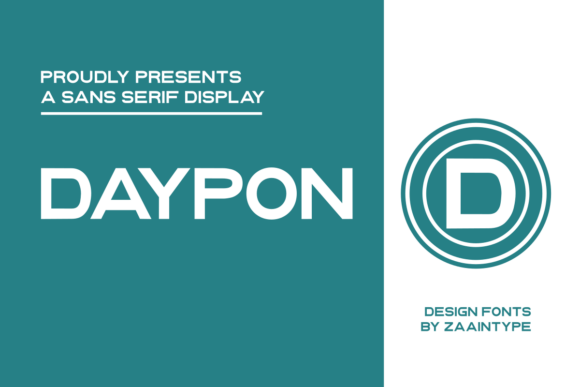
Introducing Daypon: The Ultimate Contemporary Sans Serif Font for Modern Designs
In the world of typography, fonts play a crucial role in conveying messages, expressing emotions, and creating a lasting impression. With the ever-evolving landscape of digital and print media, the demand for modern, legible, and versatile fonts has increased significantly. This is where Daypon, a contemporary sans serif font, comes into play. Designed with simplicity and legibility in mind, Daypon is the perfect solution for designers, marketers, and businesses looking to elevate their brand’s visual identity.
Design Philosophy: Simplicity and Legibility
Daypon’s design philosophy revolves around the principles of simplicity, legibility, and versatility. Its neat, linear aesthetics and symmetrical proportions make it an ideal choice for a wide range of applications, from digital branding and web design to printed media. The font’s understated design ensures that it doesn’t overpower the content, allowing the message to take center stage.
Daypon’s simplicity is not just about minimalism; it’s also about creating a sense of balance and harmony. The font’s carefully crafted letterforms, with their subtle curves and precise lines, work in tandem to create a visually appealing and easy-to-read experience. Whether you’re designing a website, brochure, or social media post, Daypon’s legibility ensures that your message is conveyed clearly and effectively.
Key Features of Daypon Font
- Contemporary sans serif design: Daypon’s modern sans serif design makes it perfect for contemporary brands and designs.
- Neat and linear aesthetics: The font’s clean lines and minimalist approach create a visually appealing experience.
- Symmetrical proportions: Daypon’s symmetrical proportions ensure balance and harmony in its design.
- Understated design: The font’s subtle design ensures that it doesn’t overpower the content.
- High legibility: Daypon’s careful letterform design ensures easy readability across various mediums.
- Versatile application: The font is suitable for digital branding, web design, printed media, and more.
Applications of Daypon Font
Daypon’s versatility makes it an excellent choice for various design applications. Here are a few examples:
- Digital Branding: Use Daypon to create a modern and sleek visual identity for your brand, including logos, business cards, and letterheads.
- Web Design: Daypon’s legibility and clean design make it perfect for web design, ensuring a seamless user experience across various devices.
- Printed Media: The font is suitable for brochures, posters, flyers, and other printed materials, providing a professional and modern look.
- Advertising: Daypon’s stylish and modern appeal makes it an excellent choice for advertising campaigns, including billboards, magazines, and newspapers.
Benefits of Using Daypon Font
By choosing Daypon, designers and businesses can reap several benefits, including:
- Improved Readability: Daypon’s careful design ensures that your content is easy to read and understand.
- Enhanced Visual Identity: The font’s modern and sleek design helps create a professional and stylish visual identity for your brand.
- Versatility: Daypon’s versatility makes it suitable for various design applications, saving you time and effort.
- Legibility across Devices: The font’s clean design ensures that your content looks great across various devices, from desktops to mobile phones.
Tips for Using Daypon Font Effectively
To get the most out of Daypon, here are some tips to keep in mind:
- Pair with Other Fonts: Experiment with pairing Daypon with other fonts to create a unique and visually appealing combination.
- Adjust Font Sizes: Adjust font sizes to create visual hierarchy and emphasize important information.
- Use Color Effectively: Use color to add contrast and create visual interest, but ensure that it doesn’t overpower the content.
- Experiment with Line Spacing: Adjust line spacing to create a clear and easy-to-read experience.
In conclusion, Daypon is a contemporary sans serif font that offers a perfect blend of simplicity, legibility, and versatility. Its neat, linear aesthetics, symmetrical proportions, and understated design make it an excellent choice for various design applications. By choosing Daypon, designers and businesses can create a professional and stylish visual identity that resonates with their audience. Whether you’re designing a website, brochure, or social media post, Daypon is the perfect font to ensure seamless readability without compromising on a stylish, modern appeal.